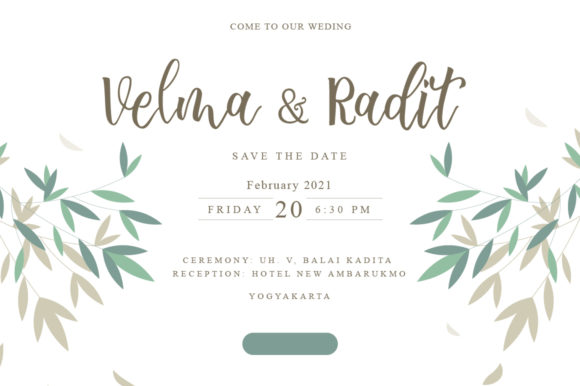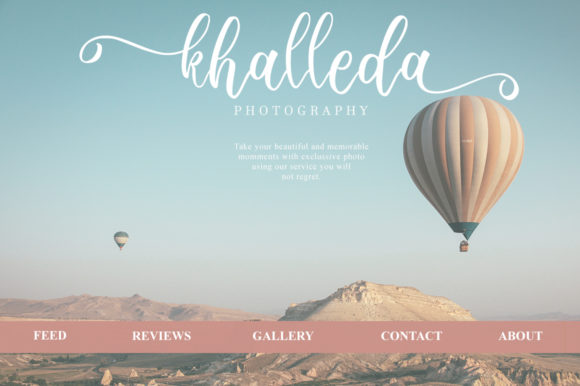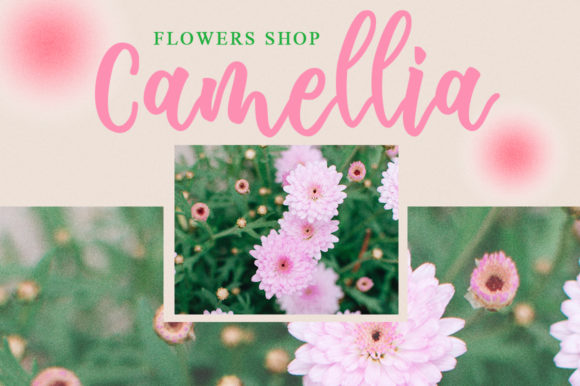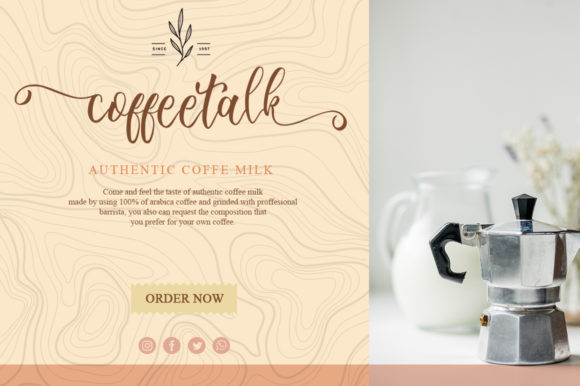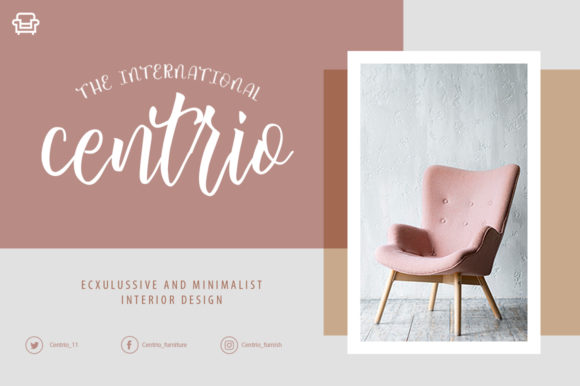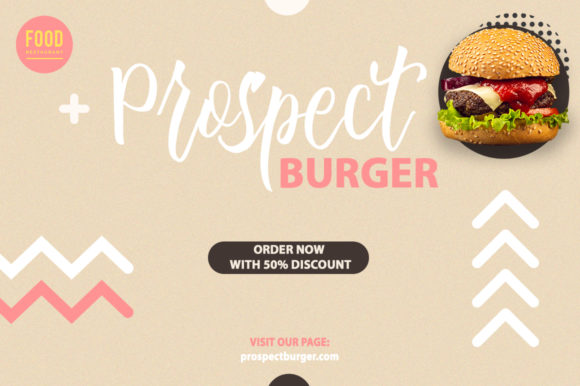
Cappadocia Font: Elevate Your Designs with a Timeless Handwritten Touch
Are you a designer or crafter looking for a unique and elegant font to add a personal touch to your creations? Look no further than Cappadocia, an incredibly distinct, delicate, and timeless handwritten font. This beautiful font is perfect for a variety of design projects, including wedding invitations, thank you cards, quotes, greeting cards, logos, business cards, and more.
What Makes Cappadocia Font So Special?
Cappadocia Font stands out from other fonts due to its delicate and elegant handwritten style. Its unique and timeless design makes it perfect for designers and crafters who want to add a personal touch to their creations. Whether you’re designing wedding invitations, greeting cards, or business cards, Cappadocia Font is sure to impress.
Cappadocia Font is incredibly versatile and can be used for a wide range of design projects. Here are some ideas to get you started:
- Wedding invitations: Add a touch of elegance and sophistication to your wedding invitations with Cappadocia Font.
- Thank you cards: Express your gratitude with beautifully designed thank you cards featuring Cappadocia Font.
- Quotes: Create stunning quote graphics with Cappadocia Font that are perfect for social media, blogs, or websites.
- Greeting cards: Design beautiful greeting cards for special occasions like birthdays, anniversaries, or holidays.
- Logos: Use Cappadocia Font to create a unique and memorable logo for your business or brand.
- Business cards: Stand out from the crowd with beautifully designed business cards featuring Cappadocia Font.
One of the best features of Cappadocia Font is that it’s PUA (Private Use Area) encoded. This means that you can access all of the glyphs and swashes with ease, giving you even more creative freedom and flexibility. With PUA encoding, you can:
- Access a wide range of glyphs and swashes to customize your designs.
- Easily switch between different glyphs and swashes to create unique and varied designs.
- Save time and effort by having all the glyphs and swashes at your fingertips.
Why Choose Cappadocia Font?
So why choose Cappadocia Font for your design projects? Here are just a few reasons:
- Unique and timeless design: Cappadocia Font has a unique and timeless design that will make your creations stand out.
- Delicate and elegant: The font’s delicate and elegant style makes it perfect for a wide range of design projects.
- PUA encoded: With PUA encoding, you can access all of the glyphs and swashes with ease, giving you even more creative freedom and flexibility.
- Versatile: Cappadocia Font can be used for a wide range of design projects, from wedding invitations to business cards.
In conclusion, Cappadocia Font is a beautiful and versatile handwritten font that’s perfect for designers and crafters looking to add a personal touch to their creations. With its unique and timeless design, delicate and elegant style, and PUA encoding, Cappadocia Font is sure to elevate your designs and make them stand out. Whether you’re designing wedding invitations, greeting cards, or business cards, Cappadocia Font is a great choice.